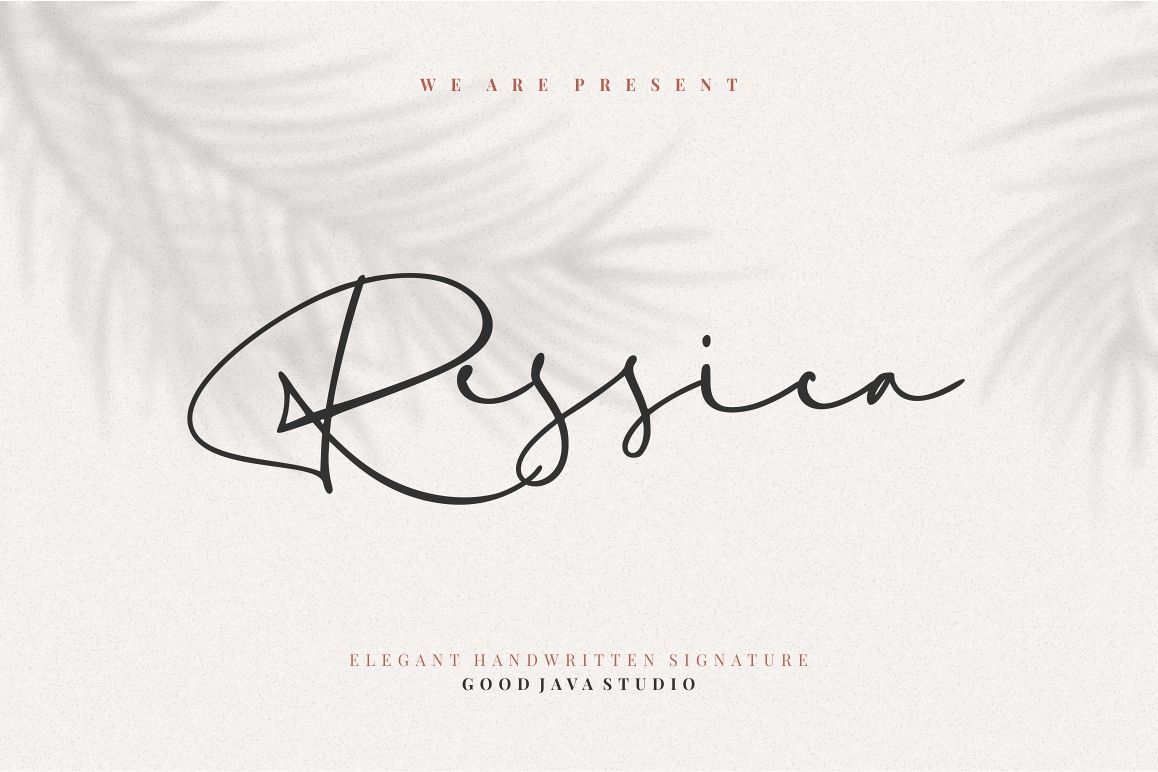
Ressica - Modern Font
Ressica font is a natural & modern handwritten font. I'ts Perfect for logo, invitation, stationery, wedding designs, social media posts, advertisements, product packaging, product designs, label, photography, watermark, special events or anything. This font include : Ressica OTF-TTF-WOFFWhat's Advantages Ressica?
• Very great for branding, logotype, handletteing, invitations, or fashion branding.